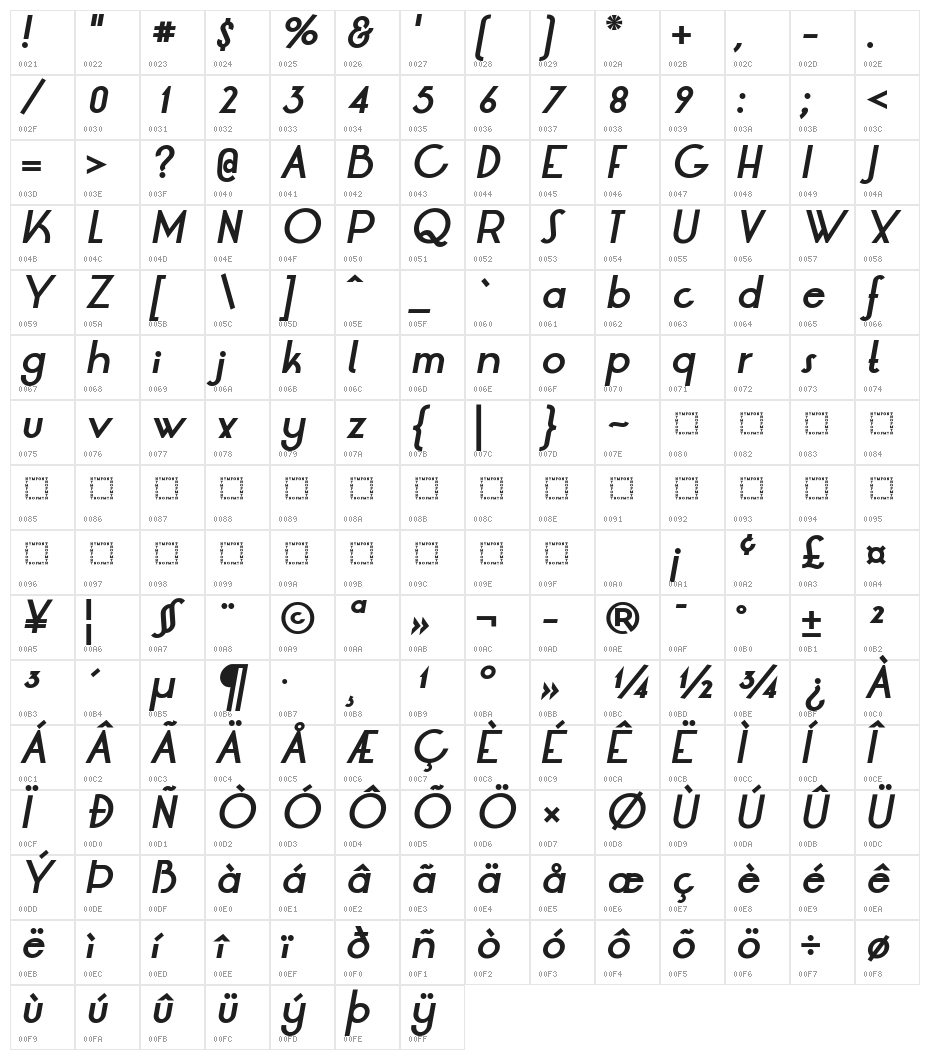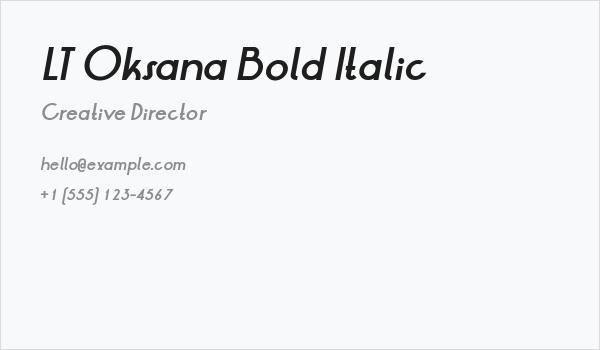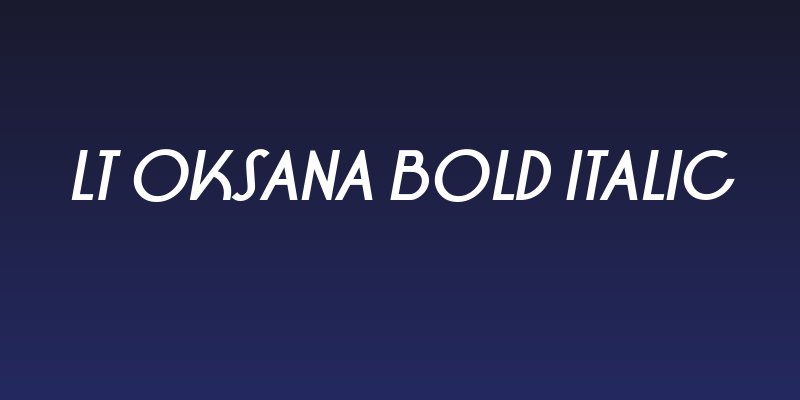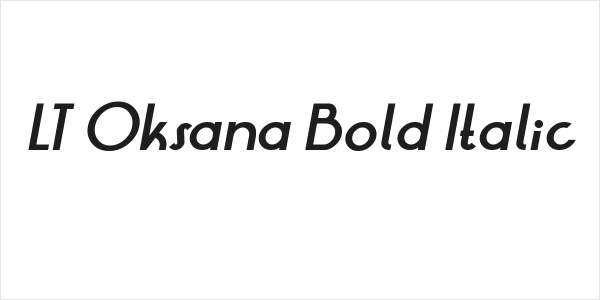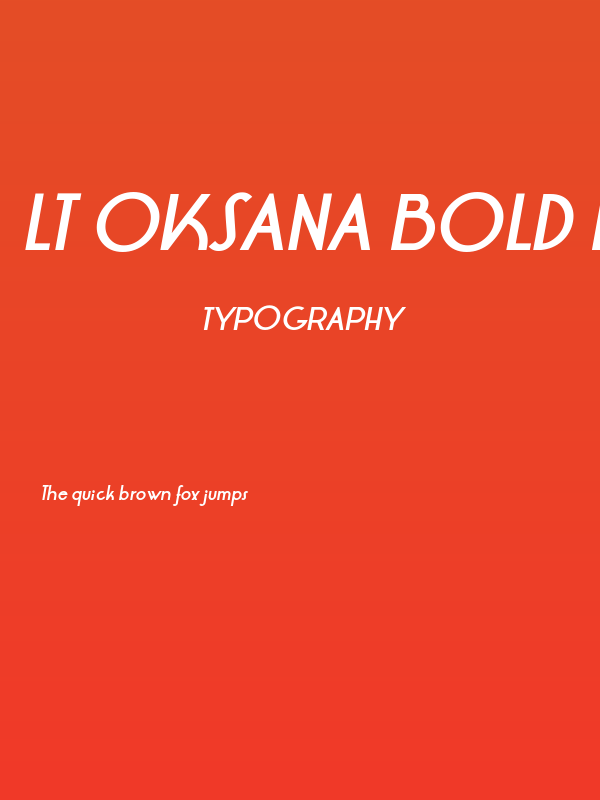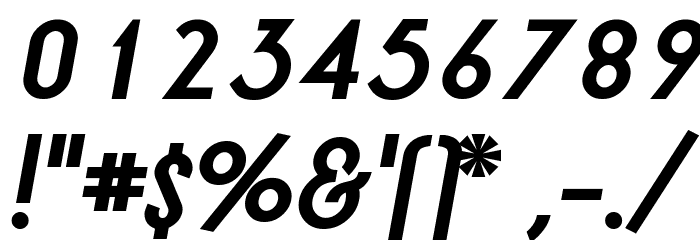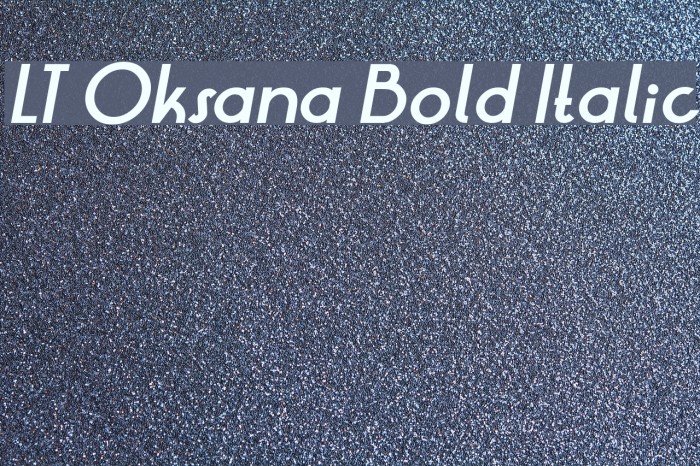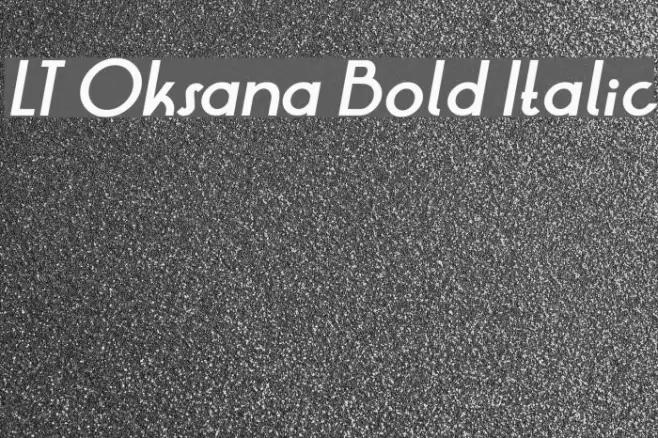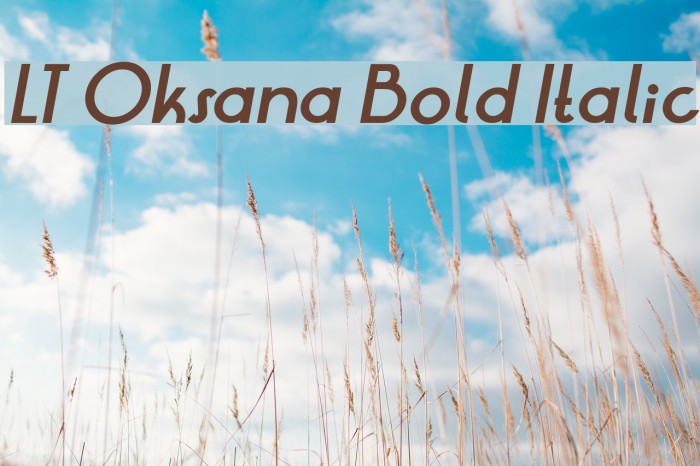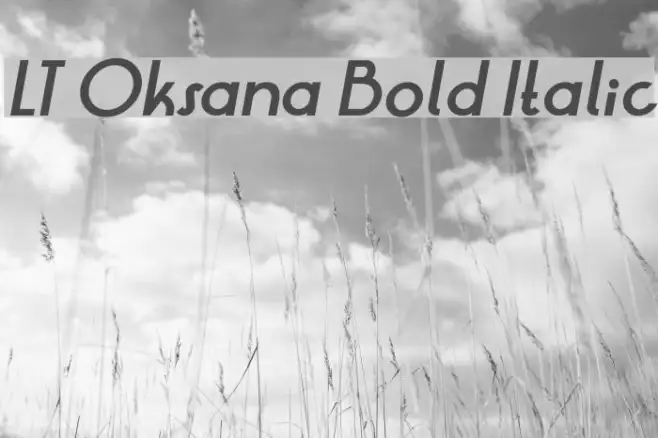
LT Oksana Bold Italic Font
LT Oksana Bold Italic Description
This font features a bold and italicized style, characterized by its dynamic and flowing letterforms. The uppercase letters exhibit a strong presence with slightly slanted strokes, while the lowercase letters maintain a consistent italic angle, enhancing the overall fluidity. The numerals are clear and bold, ensuring readability. Special characters are well-integrated, maintaining the font's cohesive style. The design is modern and versatile, suitable for various applications that require a touch of elegance and emphasis.
| Use Case | Headlines, Logos, Branding |
| Proposed Projects | Ideal for branding, advertising, headlines, and editorial design where a bold statement is needed. |